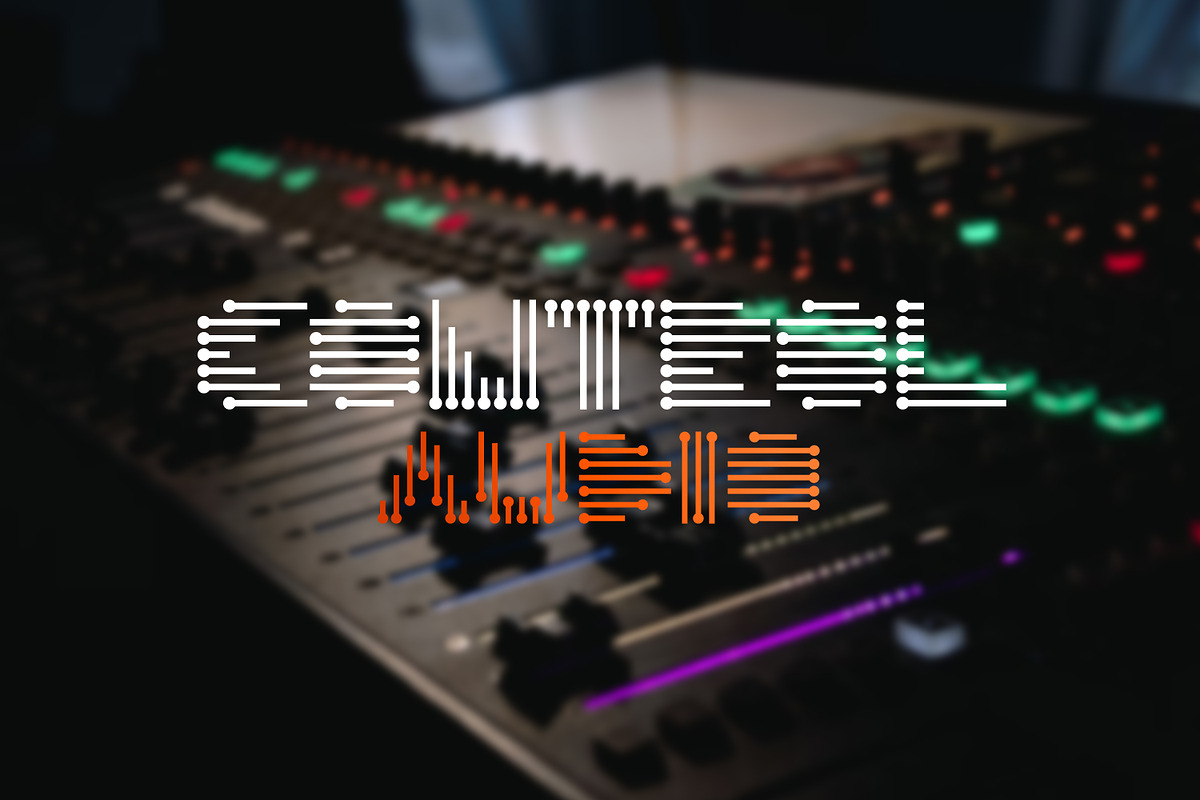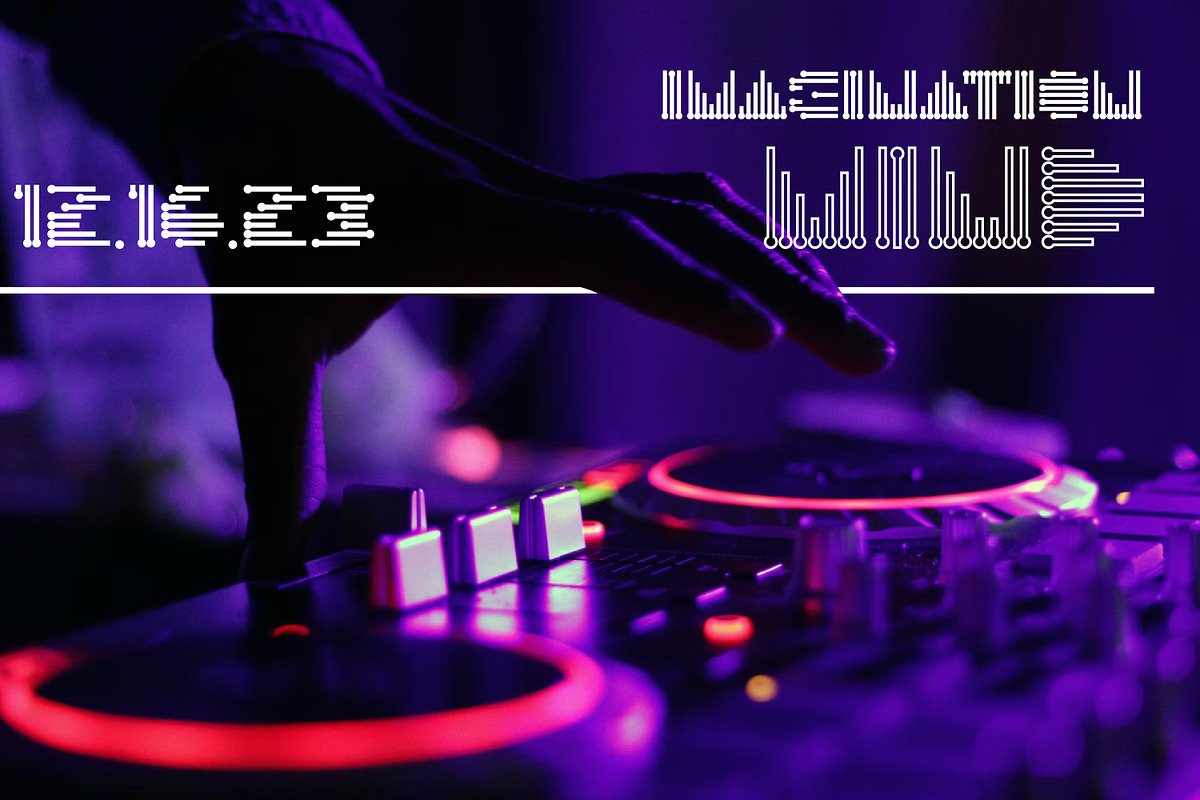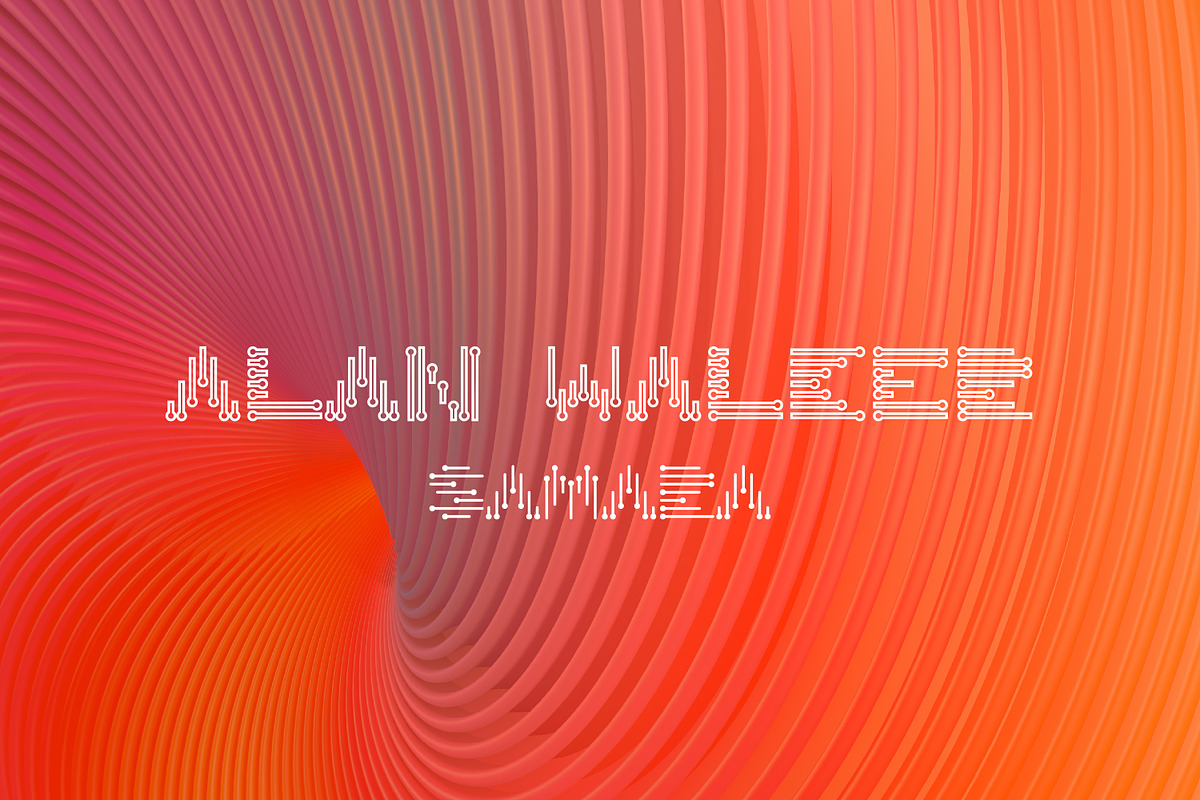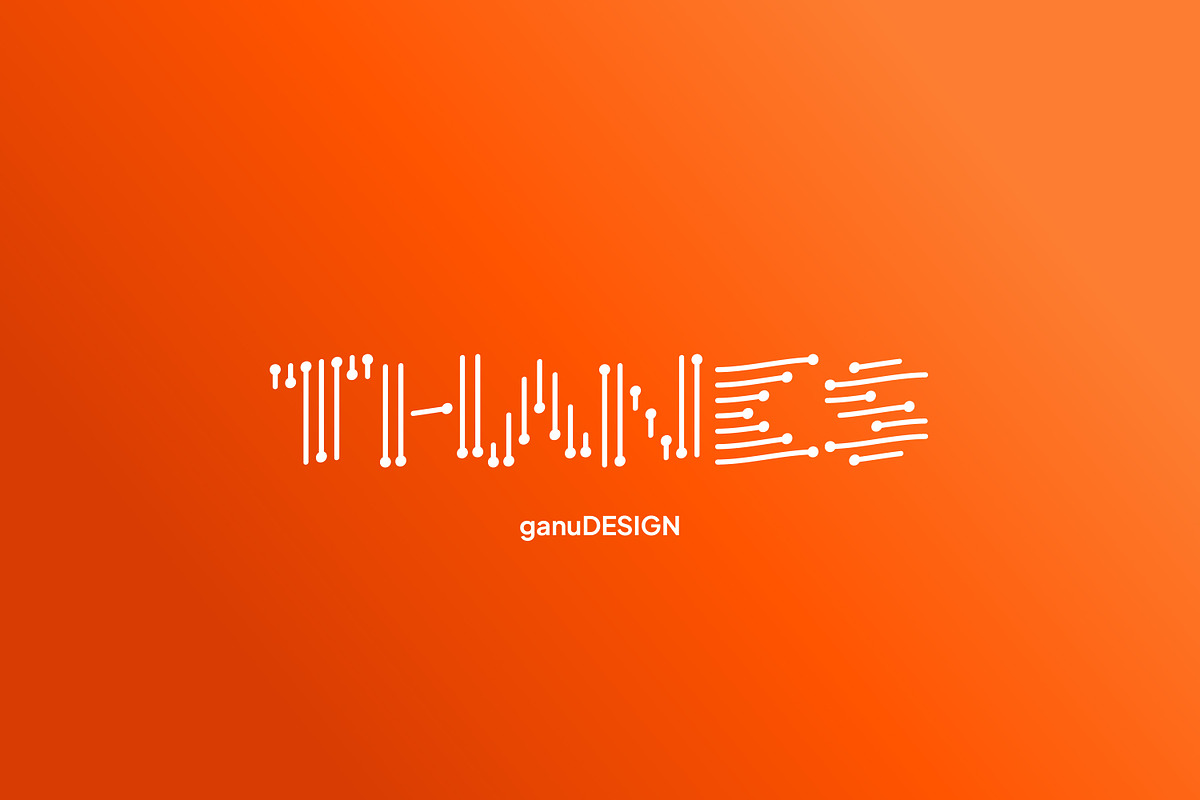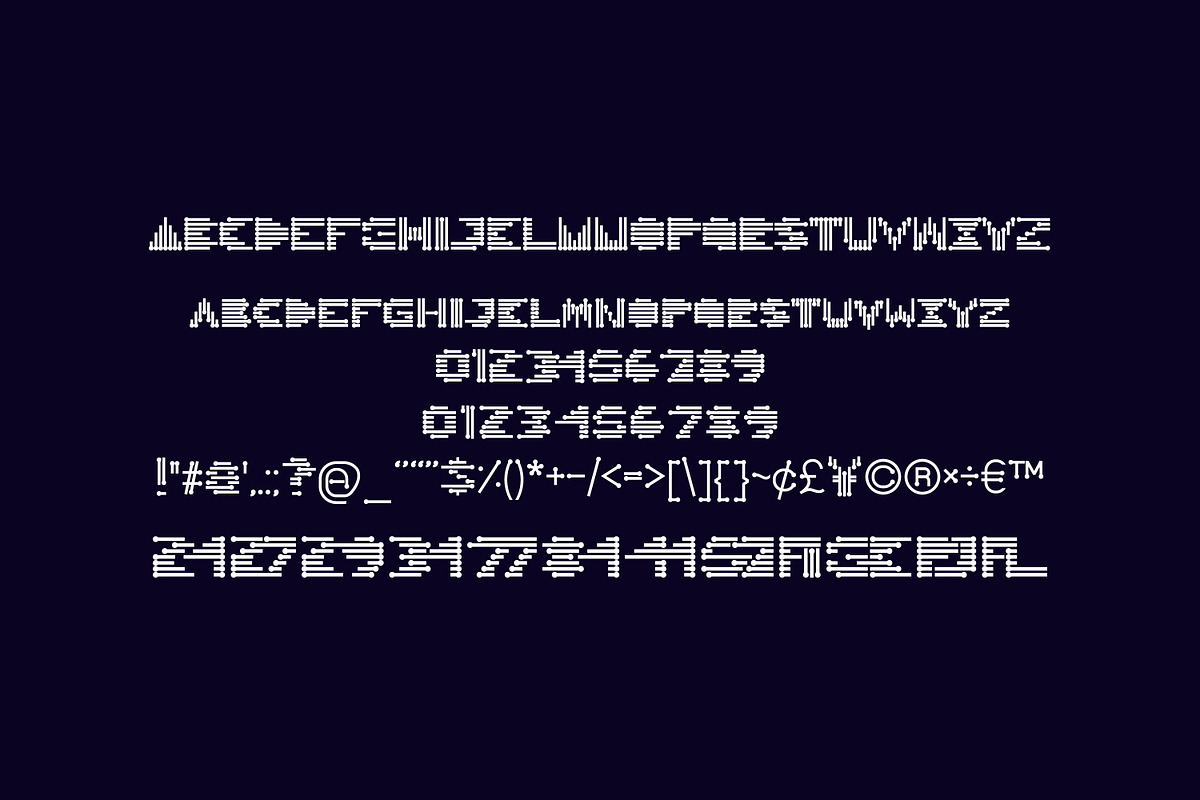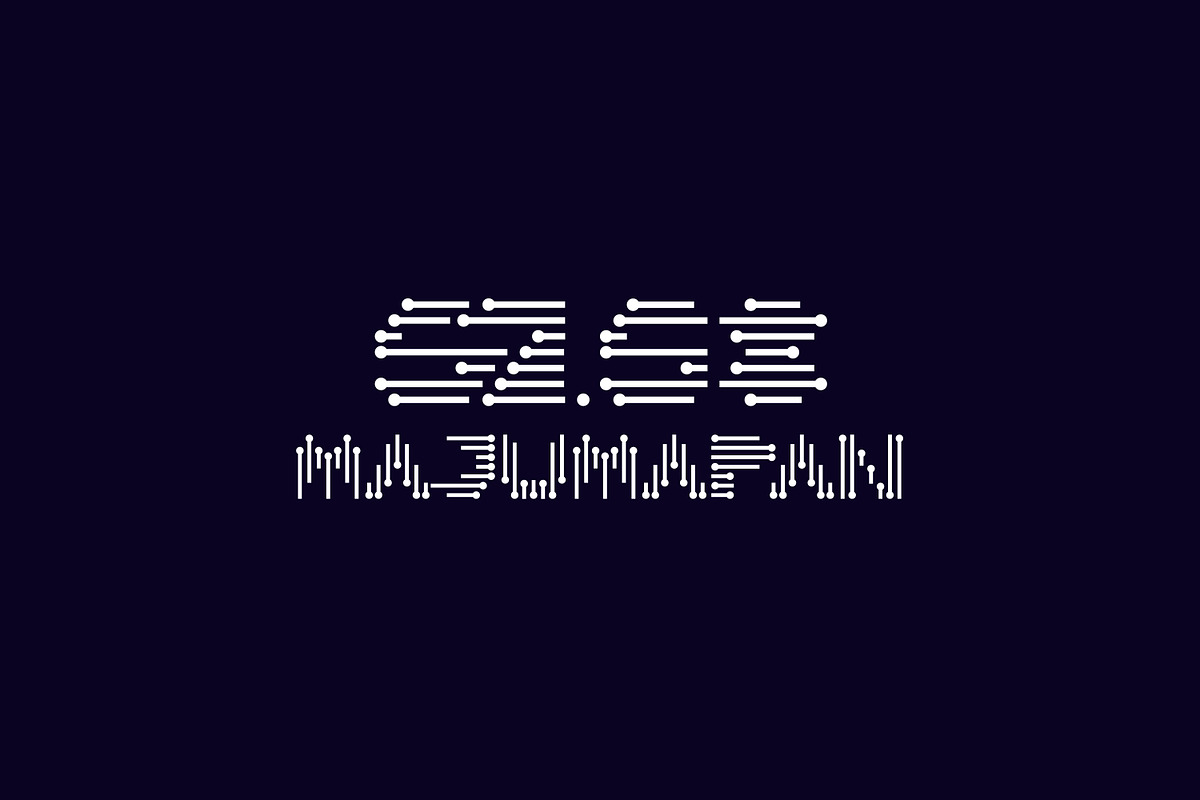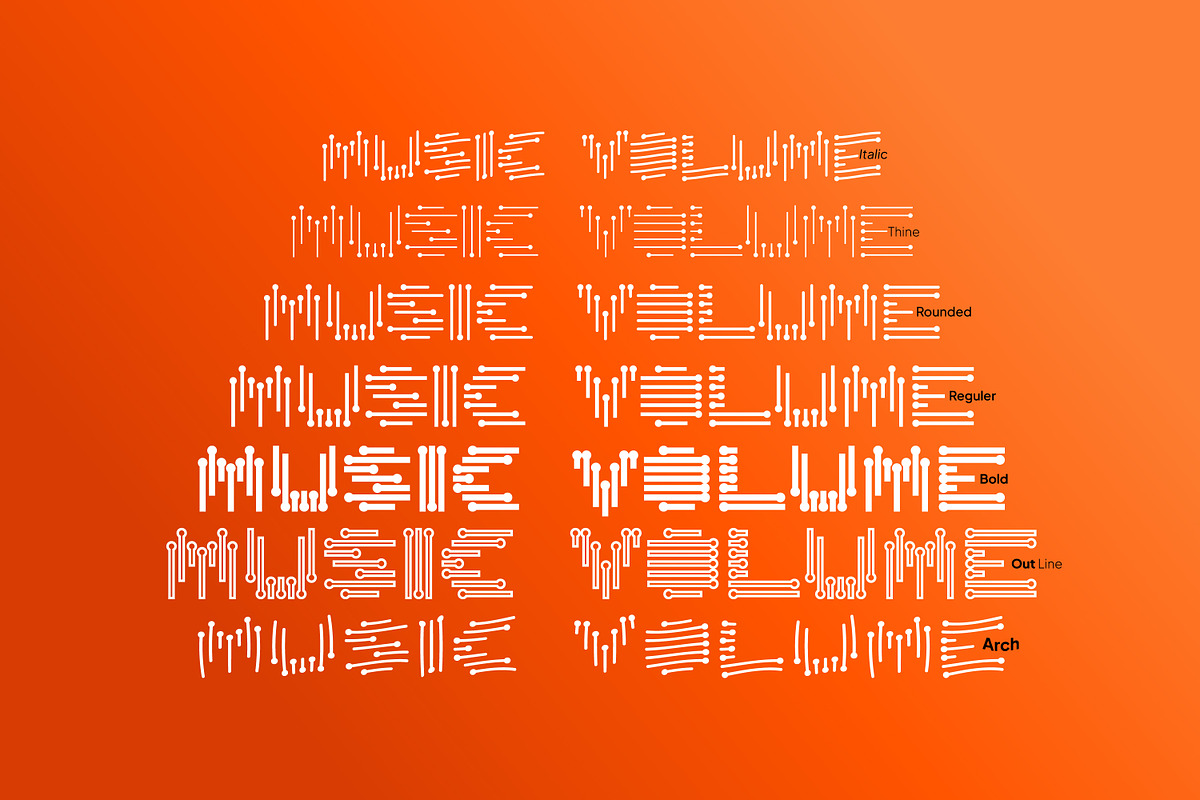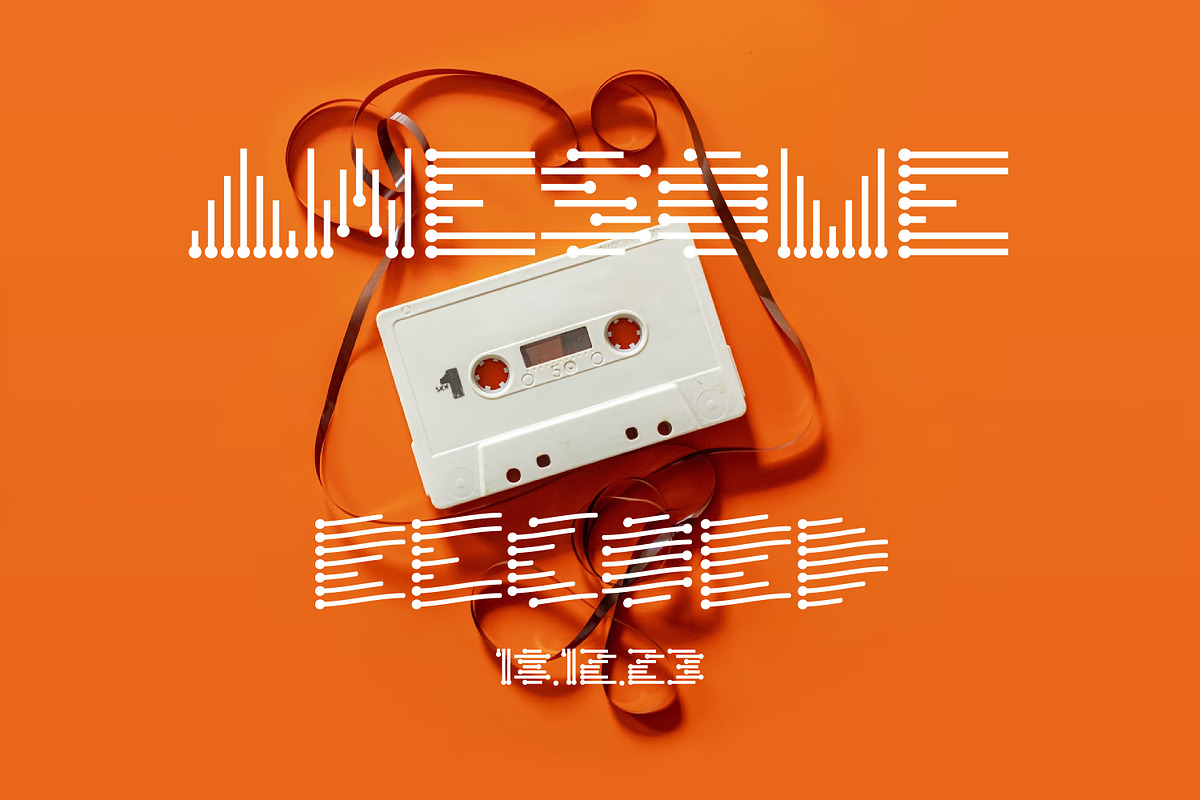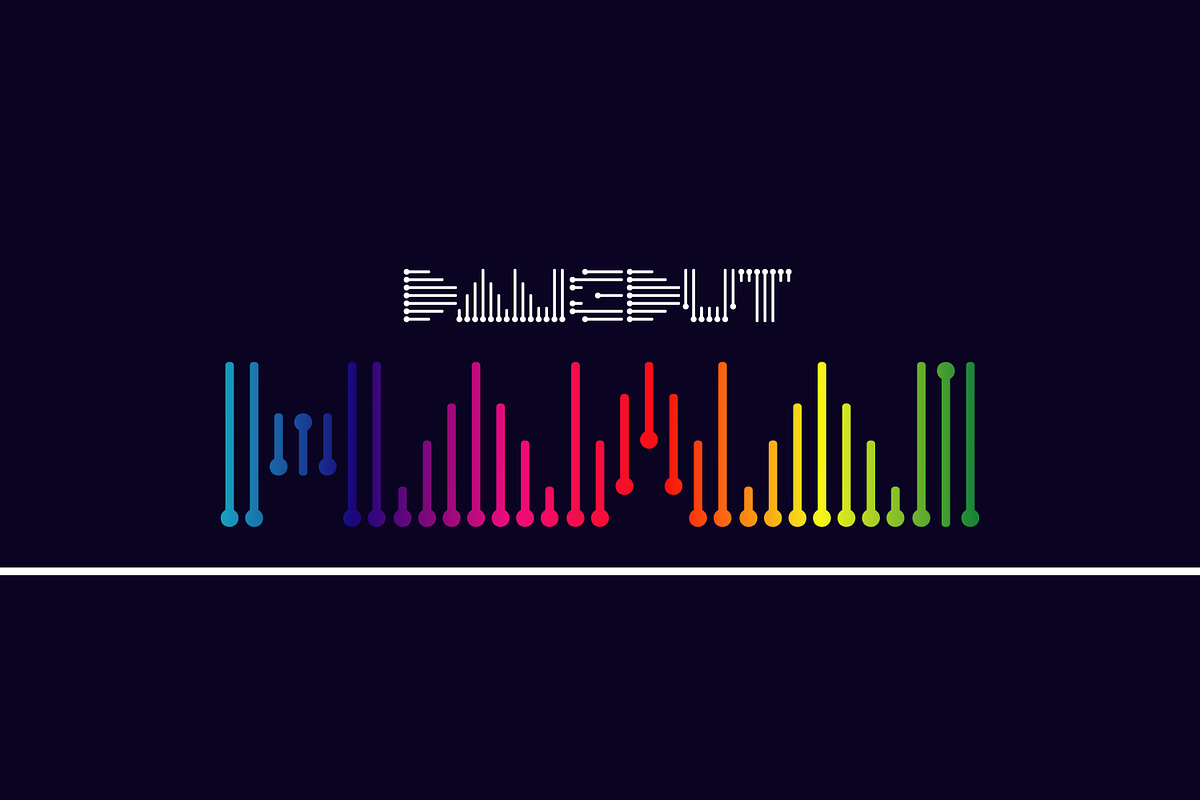
Music Volume
Music Volume is Unique Display font typeface design with 7 style alternate, inspiration from Symbols of Sound wave and volume. For Entertain, Music album, Banner, Voltage, Music Studio.
The font works great both for printing clothes and craft products branding and packaging. Also use individual letters and symbols to create logos and monograms.
- MUSIC VOLUME font including 7 Style ( Bold, Italic, Reg, Thin, Arch, Rounded, Out line)
- Ligatures Character (Number & Letter)
- Numbers and Punctuation